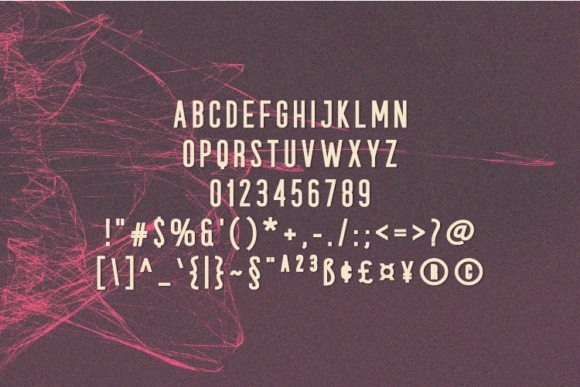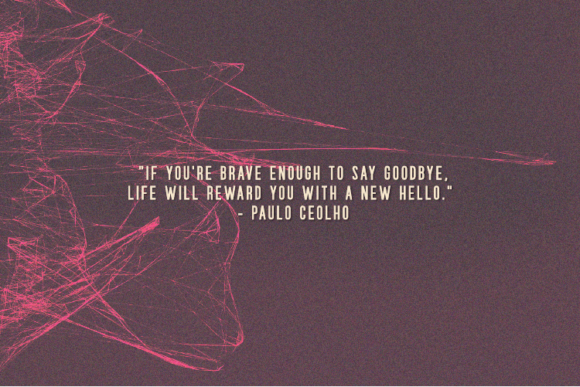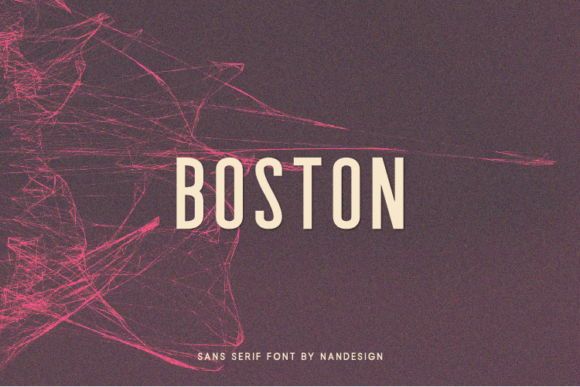
The Boston Font: A Designer’s New Best Friend
I’ll never forget the time I was working on a logo design project for a client who wanted a modern, yet elegant look. I had spent hours browsing through font libraries, but nothing seemed quite right. That was when I stumbled upon the Boston Font. Its clean lines, simple lettering, and sans serif design immediately caught my eye. I knew right then and there that I had found the perfect fit for my project.
What I Love About Boston Font
• Clean and Simple Design: The Boston Font boasts a sleek, uncluttered design that makes it perfect for a wide range of projects, from logos and headings to invitations and more.
• Highly Versatile: Whether you’re working on a digital project or a print design, the Boston Font adapts seamlessly to different mediums and styles.
• 💡 Ease of Use: The font is incredibly easy to read, even at smaller sizes, making it ideal for body text or captions.
While the Boston Font is incredibly versatile and well-designed, there are a few minor quirks to be aware of:
• ⚠️ Limited Stylistic Alternates: Compared to some other fonts, the Boston Font has limited stylistic alternates, which might restrict your creative options slightly.
• 🤔 Not Ideal for Body Text: While readable, the Boston Font shines brightest in headings and titles. For longer body text, you might prefer a font with more character variation.
The Story Behind Boston Font
The Boston Font was designed with the intention of creating a versatile, easy-to-read typeface that could complement a wide range of design projects. The designer aimed to craft a font that was both modern and timeless, avoiding unnecessary embellishments while maintaining elegance and sophistication. The result is a font that feels both contemporary and classic.
Is the Boston Font suitable for body text? While it’s readable and clean, the Boston Font shines brightest in headings and titles. For longer body text, consider a font with more character variation.
Does the Boston Font support OpenType features? Yes, the Boston Font supports OpenType features, allowing you to access a range of glyphs and stylistic alternates to enhance your design.
Is the Boston Font available in different weights? The Boston Font comes in a variety of weights, making it versatile for different design needs, from light headings to bold statements.